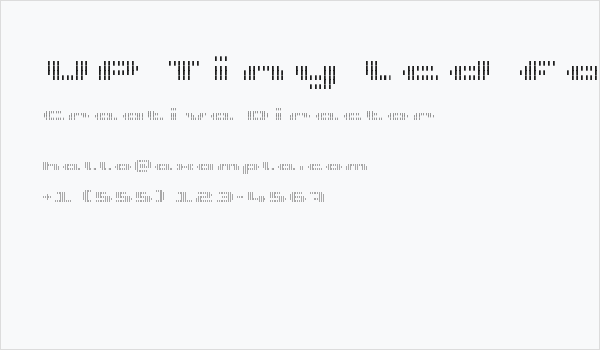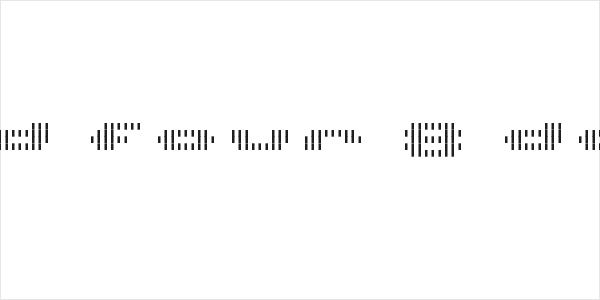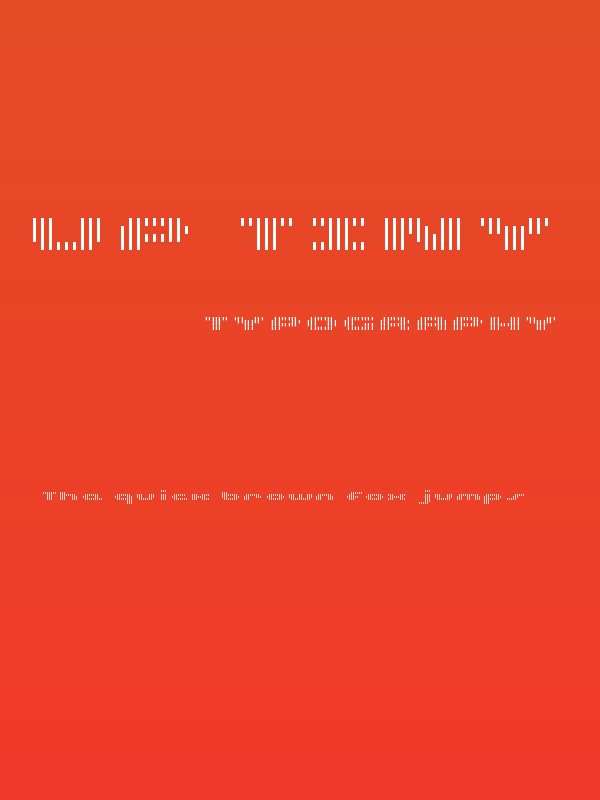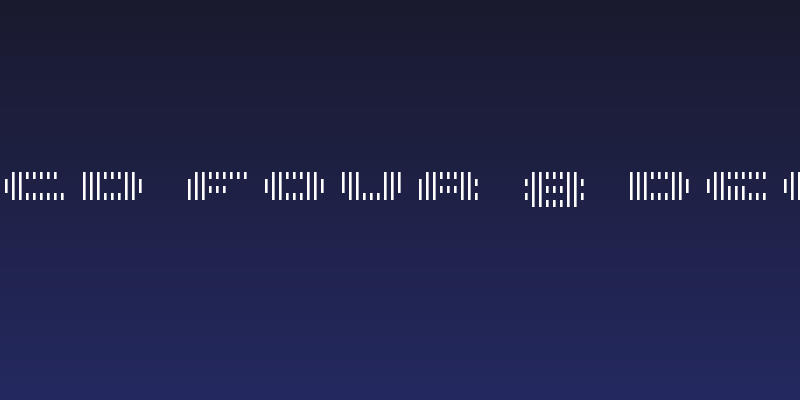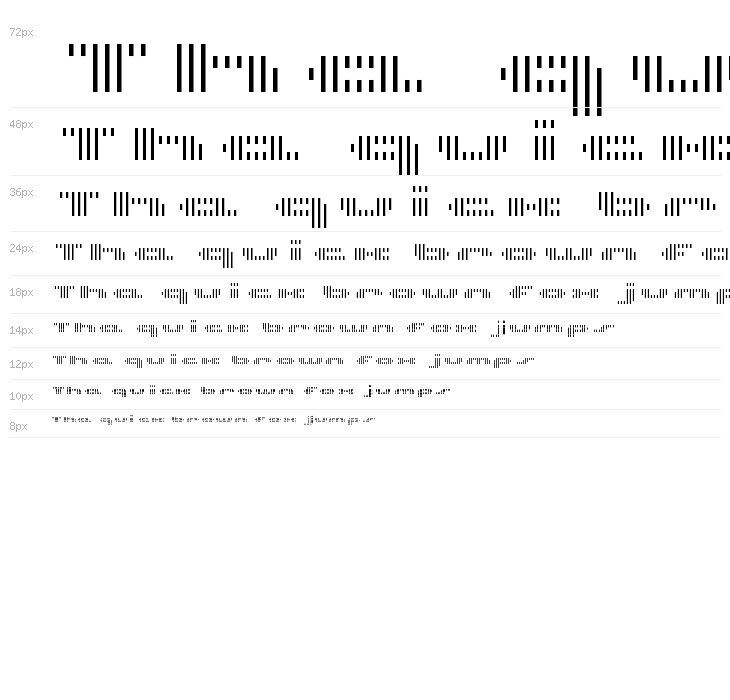
UP Tiny lcd four 8 decoV Light Font
UP Tiny lcd four 8 decoV Light Description
This font features a distinctive pixelated design, reminiscent of early digital displays and retro gaming aesthetics. Each character is composed of a series of vertical lines, creating a unique, segmented appearance. The font maintains a consistent height across all characters, providing a uniform look. It is highly legible, even at smaller sizes, due to its clear and structured form. The design is both nostalgic and modern, making it suitable for projects that aim to evoke a sense of digital nostalgia or futuristic themes. The characters are evenly spaced, ensuring readability and balance.
| Overall Style | Retro, Digital |
| Use Case | Headlines, Logos, Digital interfaces |
| Proposed Projects | Ideal for digital art, retro-themed designs, video game interfaces, and tech-related branding. |